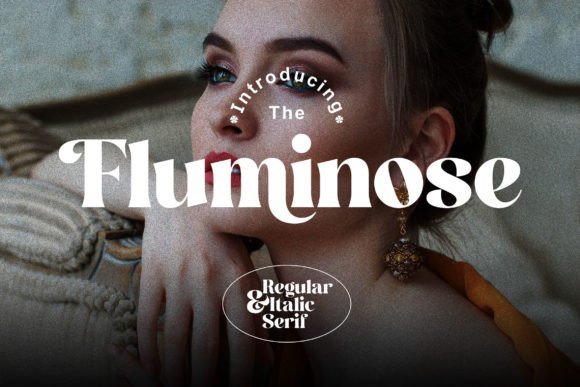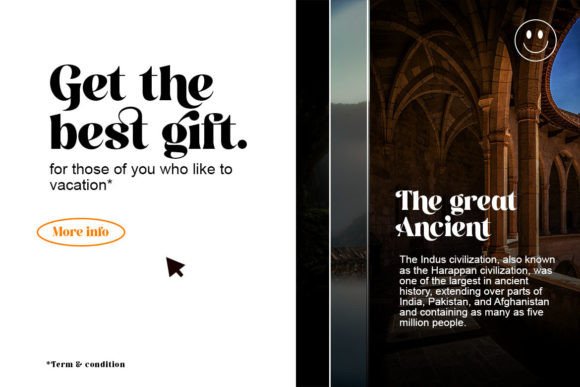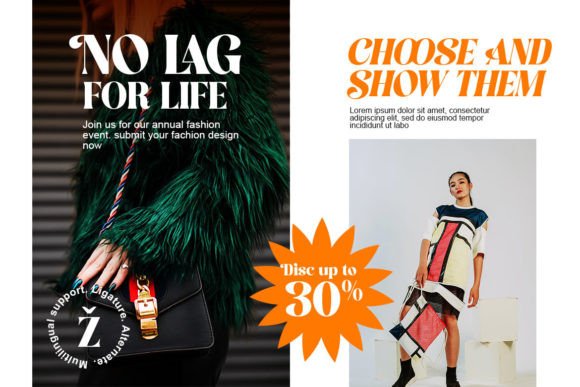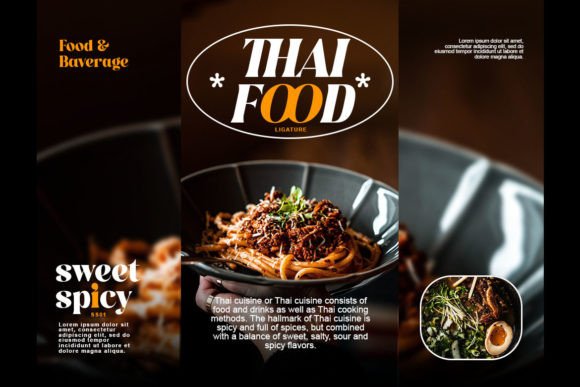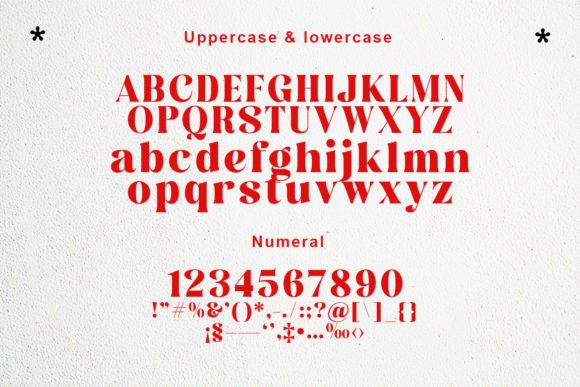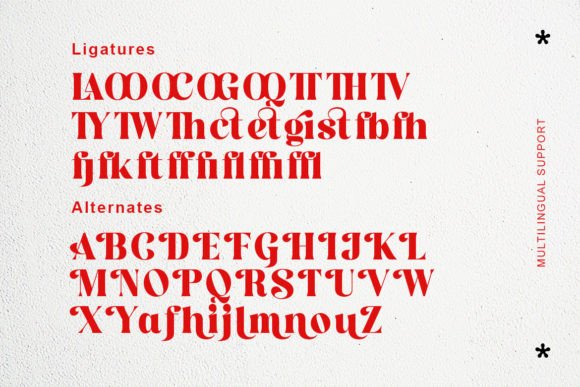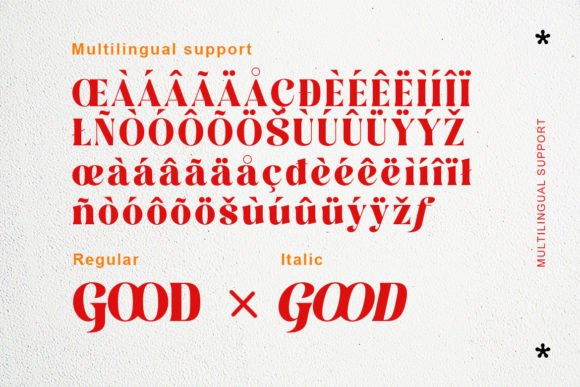
The Perfect Font for Your Masterpiece
Have you ever stared at a blank canvas, eager to bring your creative vision to life, only to be held back by the right font? The one that would elevate your artwork, make your words dance, and leave a lasting impression? This is a feeling we’re sure many designers can relate to. That’s where the Fluminose Font comes in – a bold and stylish serif font designed to help you create your most exquisite works.
With its PUA encoded glyphs and swashes, the Fluminose Font offers unparalleled flexibility and creativity. Whether you’re designing a luxury brand, a wedding invitation, or a novel, this font will give you the edge you need to stand out from the crowd. Its unique style and versatility make it a valuable addition to any designer’s toolkit.
Key Features of Fluminose Font
- Unique Characteristics: Fluminose Font features a unique blend of modern and vintage elements, with intricate details and ornaments that add a touch of sophistication and elegance.
- Language Support: Fluminose Font supports a wide range of languages, including Latin, Cyrillic, and Greek alphabets, making it a versatile choice for designers working on international projects.
- Kerning and Ligatures: Fluminose Font includes advanced kerning and ligature pairs, ensuring that text sets are visually appealing and easy to read.
Fluminose Font Review
Overall, I have mixed feelings about Fluminose Font. While it has its strengths, it also has some limitations that might make it less suitable for certain projects.
- Unique and modern design aesthetic that could be perfect for cutting-edge brands or innovative startups.
- Clear and readable even at small font sizes, making it suitable for digital applications.
- Fluminose Font offers a wide range of weights and styles, giving users ample options for customization.
- Fluminose Font’s complex design might make it difficult to pair with other fonts, limiting its versatility.
- The font’s unique aesthetic might be overwhelming for some users, particularly those who prefer more traditional designs.
- Some letterforms may appear slightly irregular or inconsistent, which could be distracting in certain contexts.
Overall, I think Fluminose Font is a solid choice for projects that require a modern, edgy feel. However, its limitations mean it might not be the best fit for every design project. With careful consideration and planning, designers can harness the font’s strengths and minimize its weaknesses.
Tips for Getting the Most Out of Fluminose Font
Here are some tips for getting the most out of Fluminose Font:
- Use Fluminose Font for headings and titles to add a touch of elegance.
- Pair Fluminose Font with a bold font for a striking contrast.
Here are some common use cases for Fluminose Font:
- Business cards and brochures.